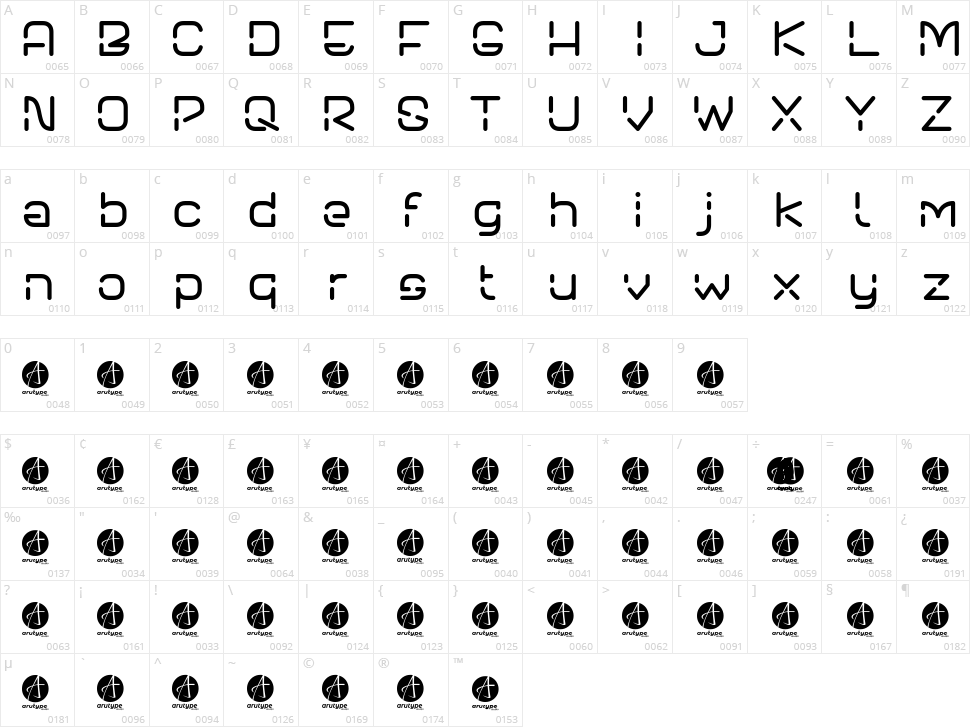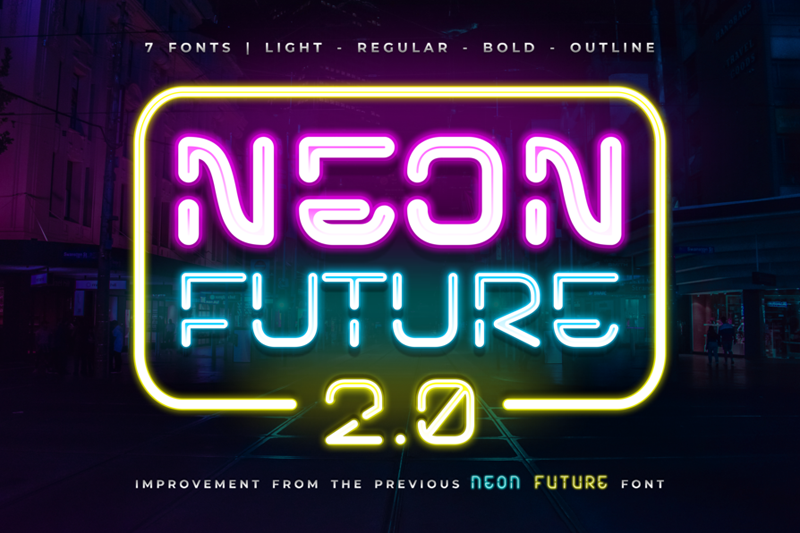
Neon Future 2.0
Neon Future 2.0 is a retro-futuristic display font with a timeless style. Major improvement of the Neon Future font at the link https://www.dafont.com/neon-future.font. There are 7 variant fonts in the Neon Future 2.0 Pro version: Light, Regular, Alternative & Outline.